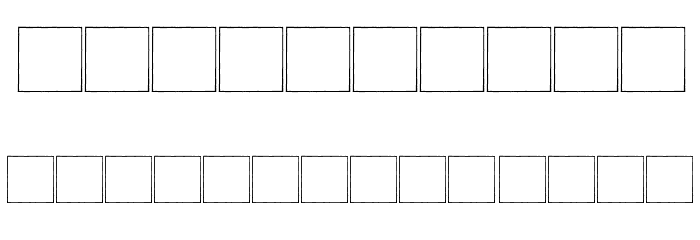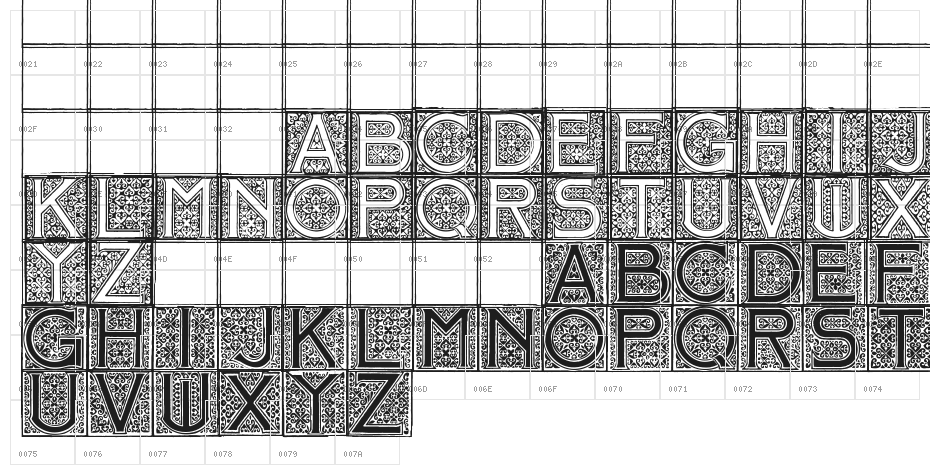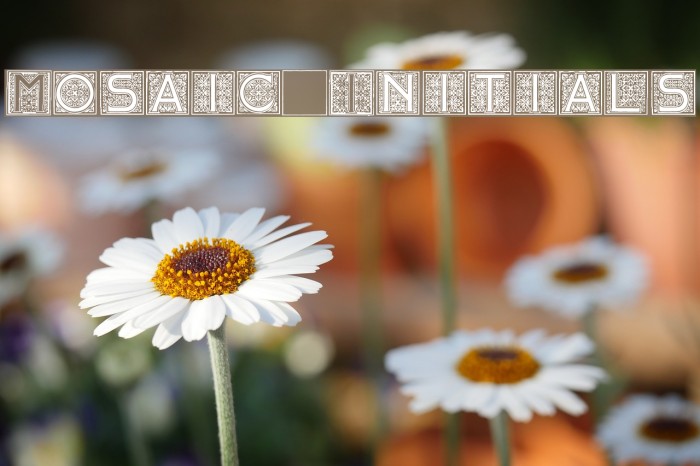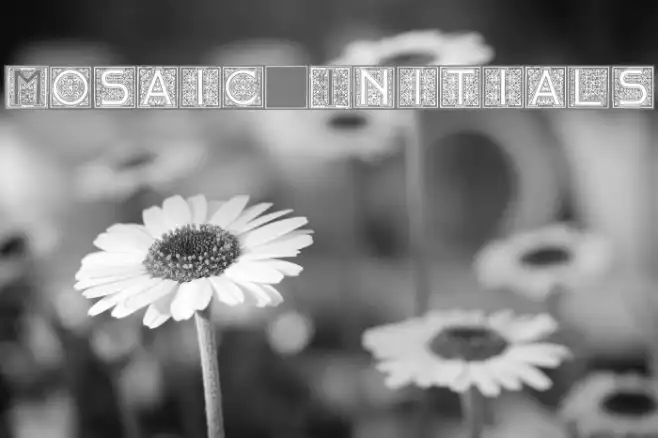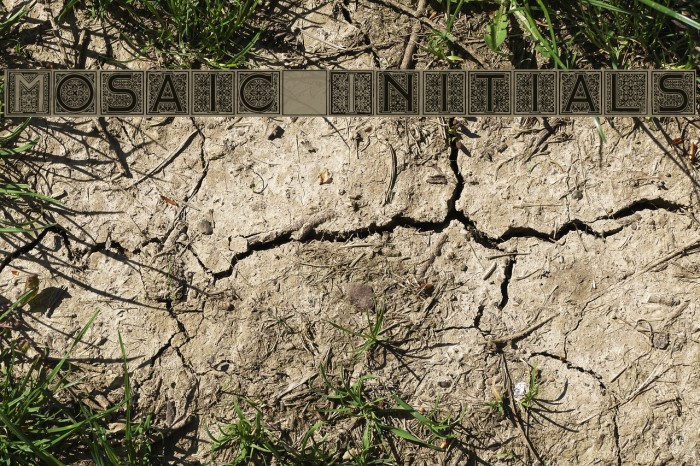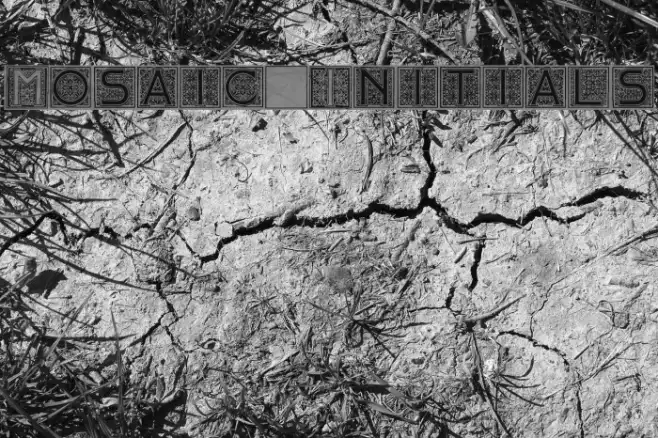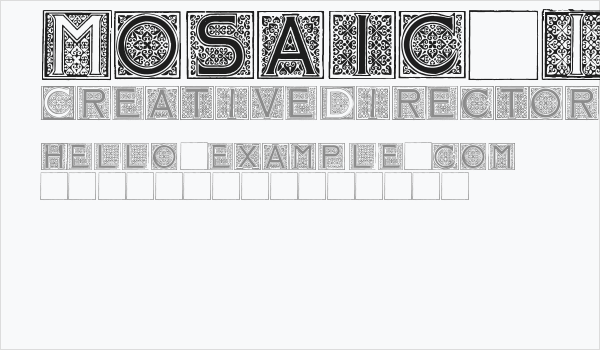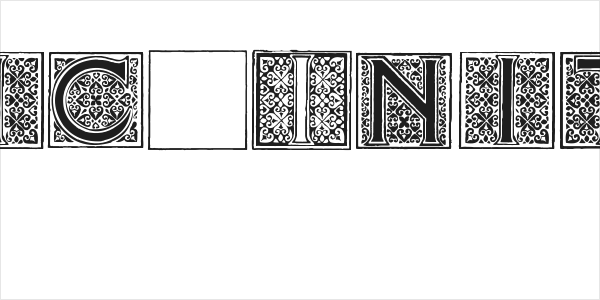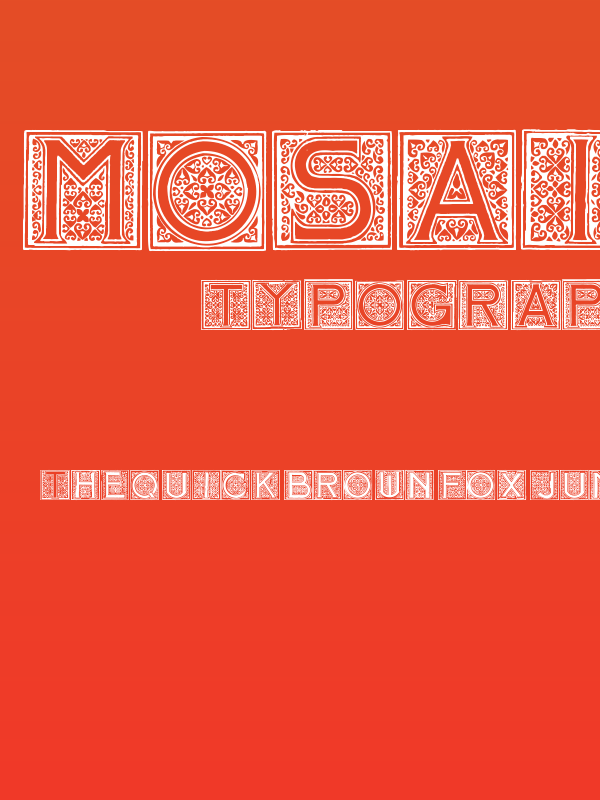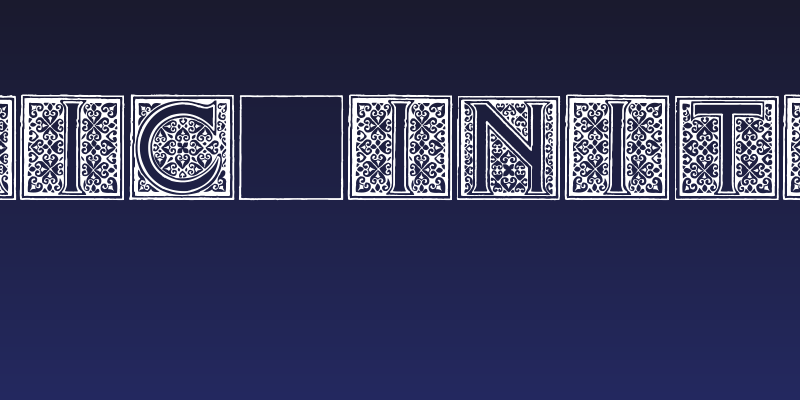
Mosaic_Initials Font
Mosaic_Initials Description
This font features an intricate mosaic design within each letter, creating a decorative and artistic appearance. Each character is enclosed in a square frame, enhancing its ornamental quality. The letters are uppercase and exhibit a high level of detail, with patterns reminiscent of classical mosaic art. The design is consistent across all characters, providing a cohesive and visually striking look. This font is ideal for projects that require a touch of elegance and historical flair, making it suitable for invitations, posters, and artistic displays.
Use CaseHeadlines, Logos, Artistic displays
Proposed ProjectsIdeal for wedding invitations, historical event posters, artistic book covers, and decorative signage.